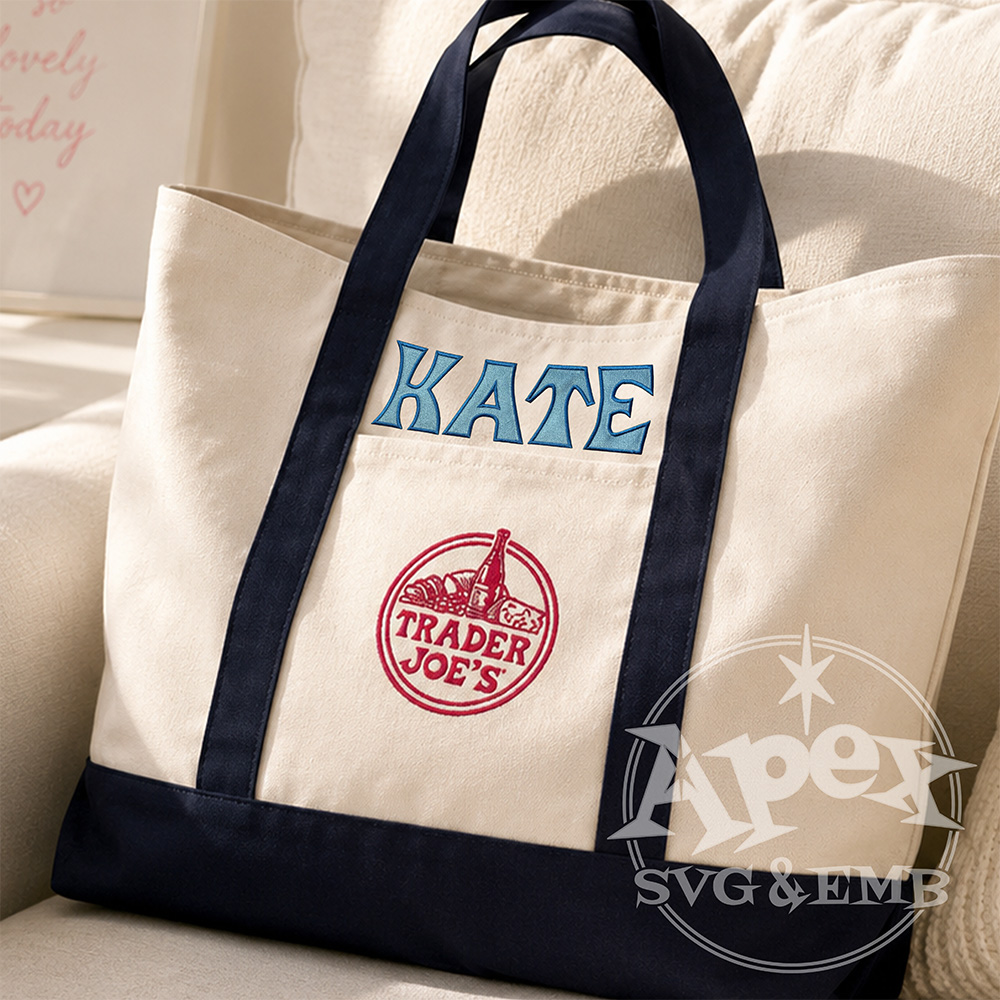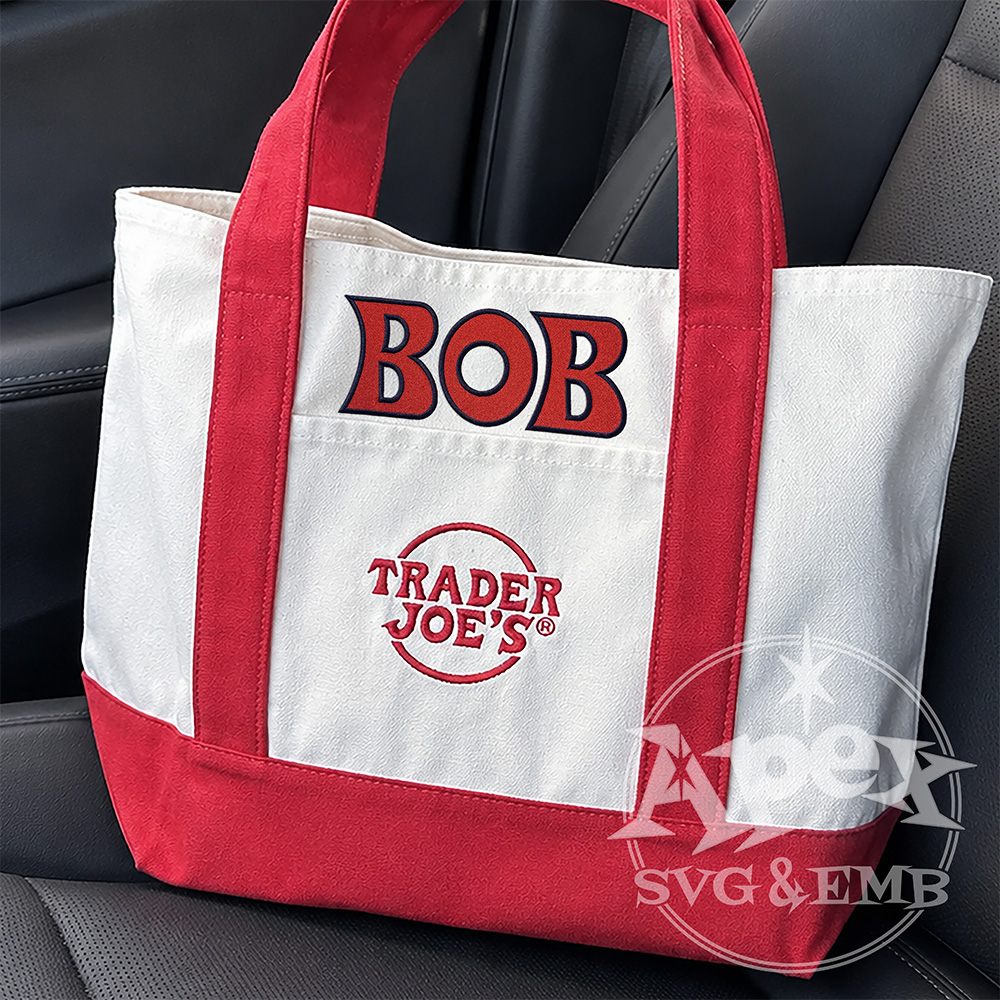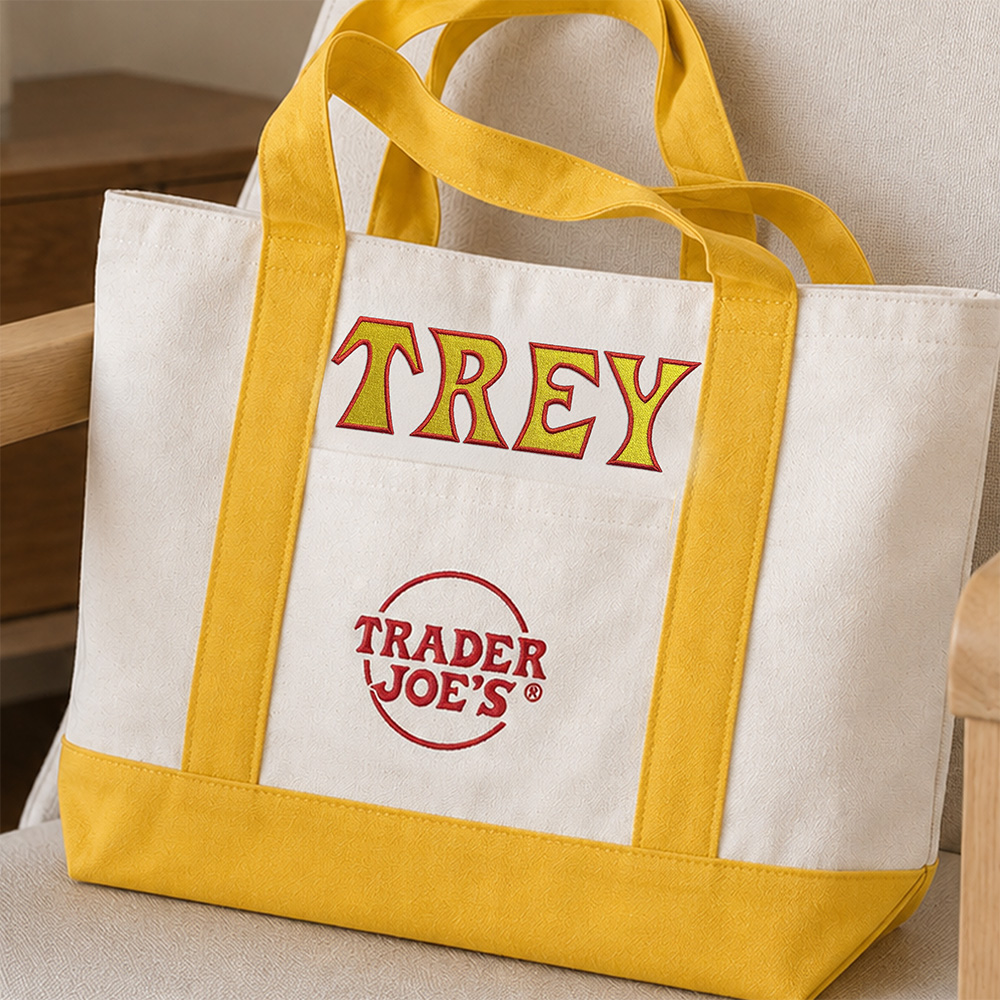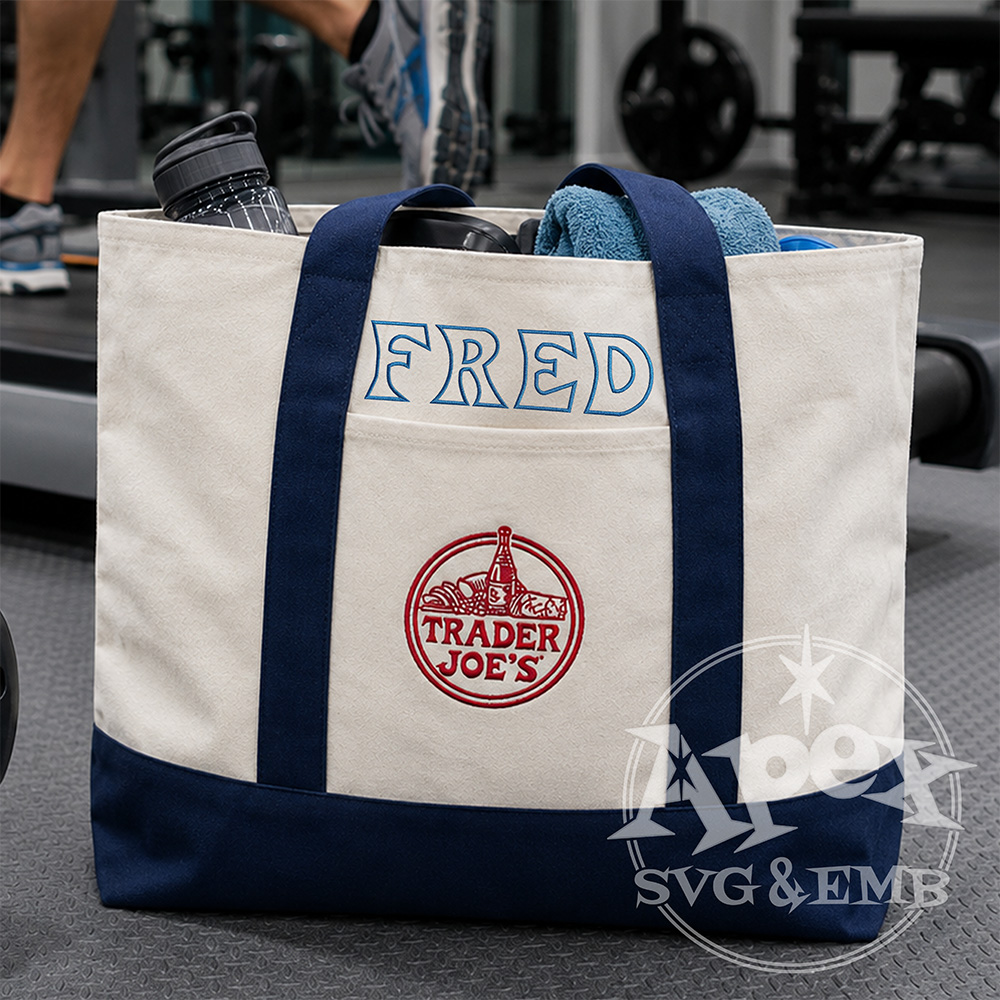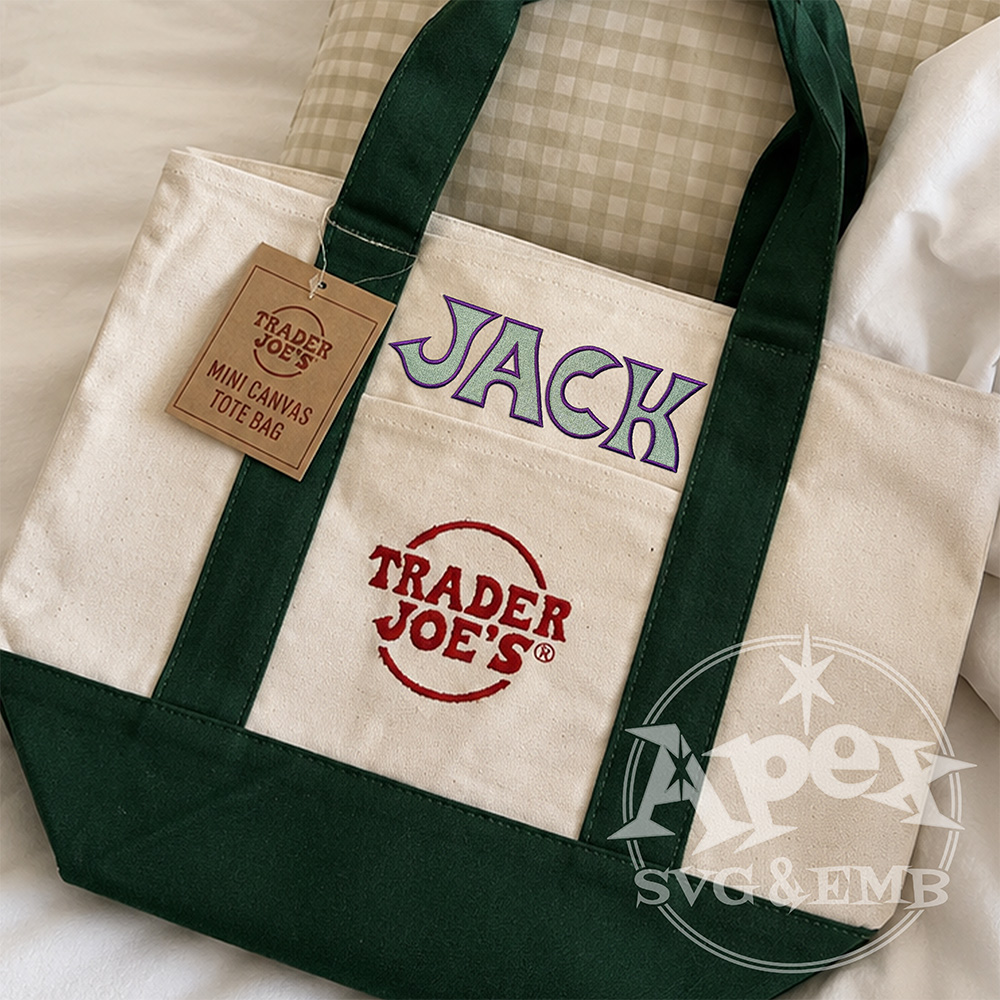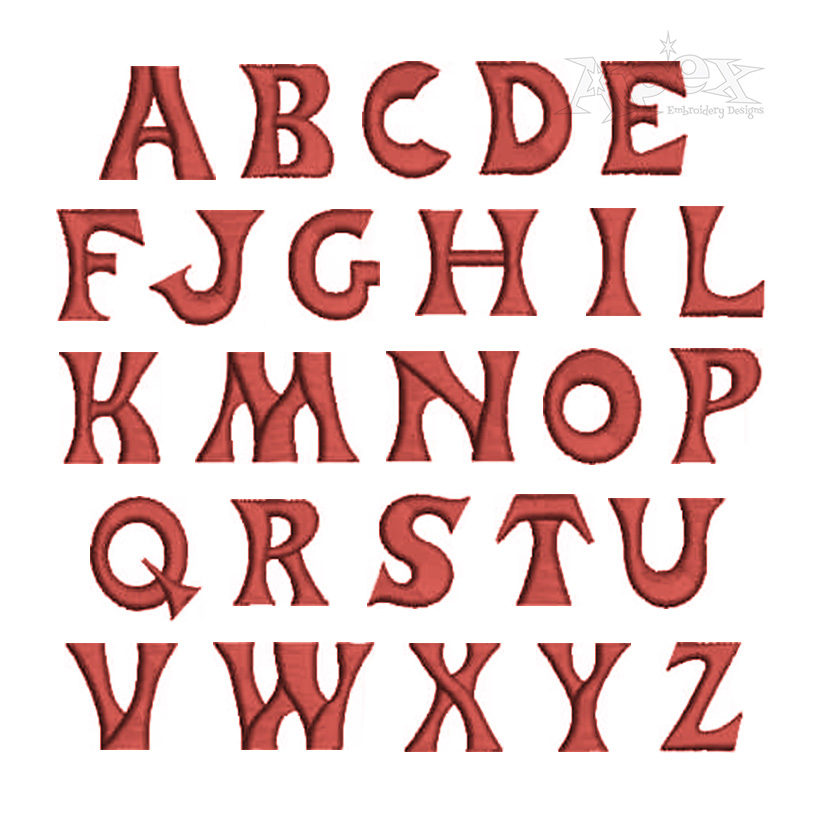
Trader Joe's Embroidery Font
Personalize uniforms and bags with this Trader Joe’s Embroidery Font — a compact grocery-store style alphabet built specifically for adding names to garments where space is tight.
Perfect For
- Work uniforms, aprons and shirts
- Canvas tote bags and market bags
- Caps, visors and beanies
- Kitchen towels and oven mitts
- Kids’ backpacks and lunch bags
- Name tags and pocket monograms
- Staff gifts and team wear
- Applique projects at display size
Why You’ll Love This Design
- Satin, fill-with-outline and applique in one purchase
- Sizes from 0.3" up to 8" — pocket name to bag front
- Small satin sizes stay readable where most fonts blur
- Digitized by hand, letter by letter, for even stitch density
Creative Ideas
Stitch a name in the 0.6" satin size above an apron pocket, then run the same name at 5" in applique across a canvas tote for a matching set.